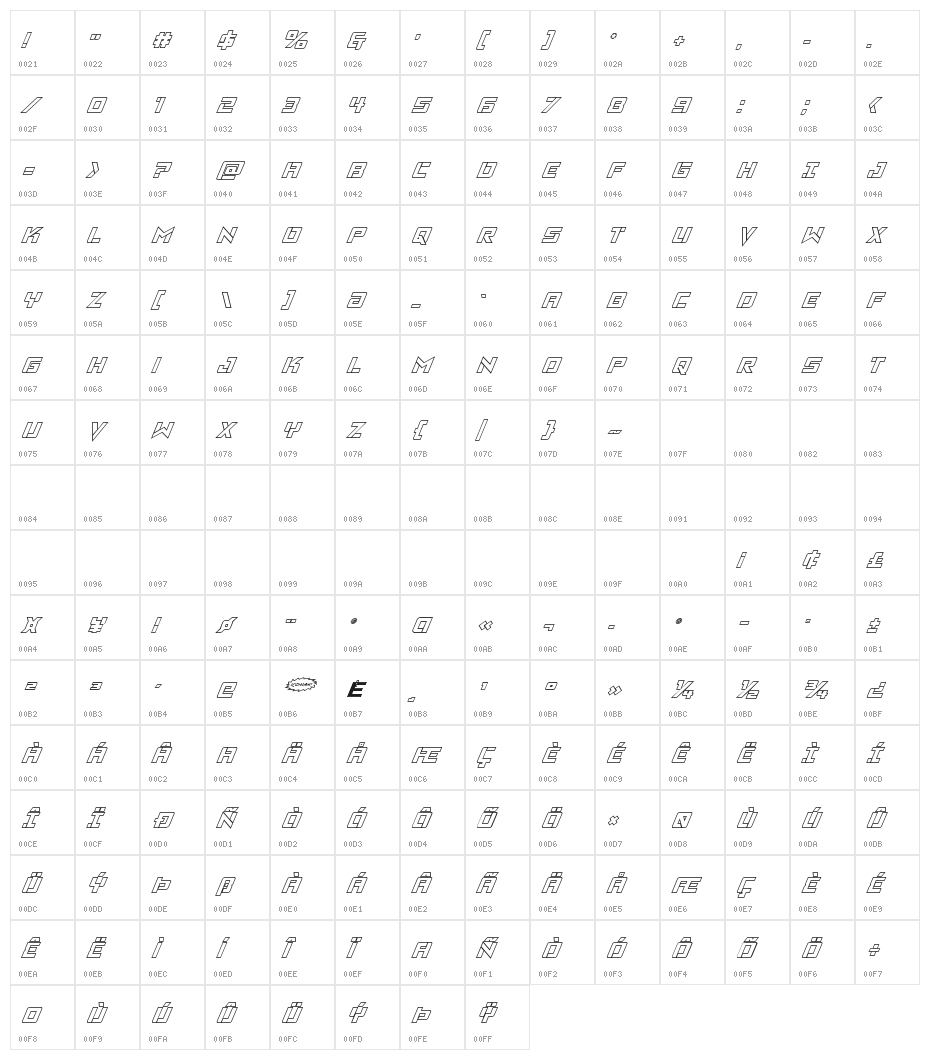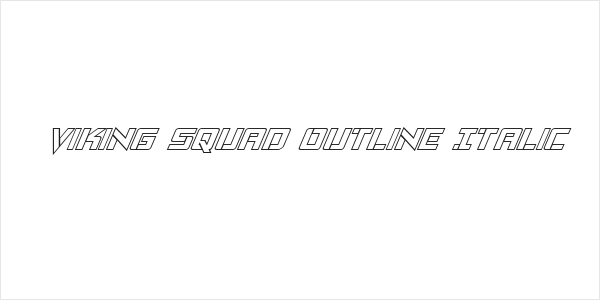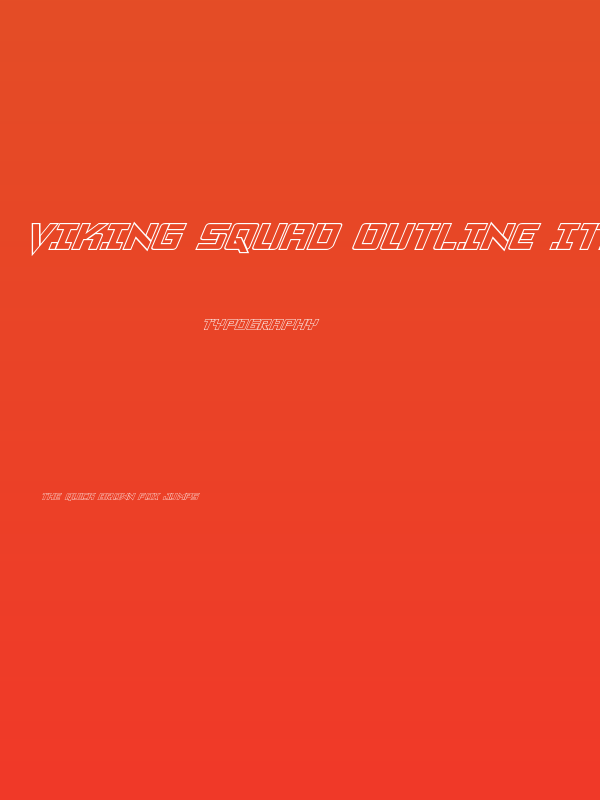
Viking Squad Outline Italic Font
Viking Squad Outline Italic Description
This font features a bold, angular design with an outlined style that gives it a striking, modern appearance. The characters are italicized, adding a dynamic and forward-leaning effect. Each letter and number is crafted with precision, showcasing sharp edges and geometric forms. The outlined nature of the font provides a sense of depth and dimension, making it stand out in any design. The spacing between characters is consistent, ensuring readability while maintaining its unique aesthetic. This font is ideal for projects that require a bold statement, such as branding, posters, or digital media.
| Proposed Projects | Ideal for branding, posters, digital media, and any project needing a bold, modern statement. |